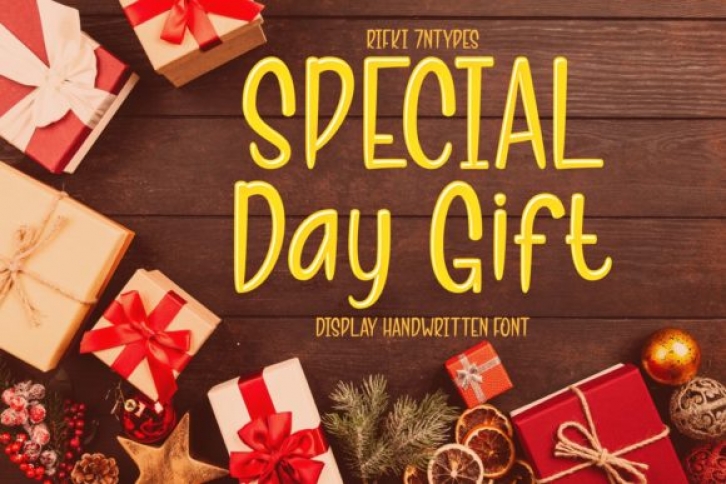
Special Day Gift is a modern display font featuring the perfect amount of trendiness. Whether you’re using it for crafting, digital designing, presentations or greeting cards making, it’s perfect!